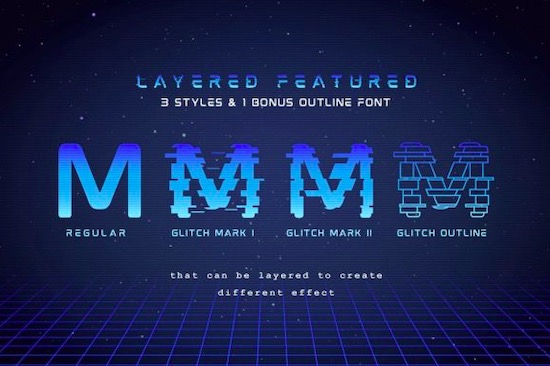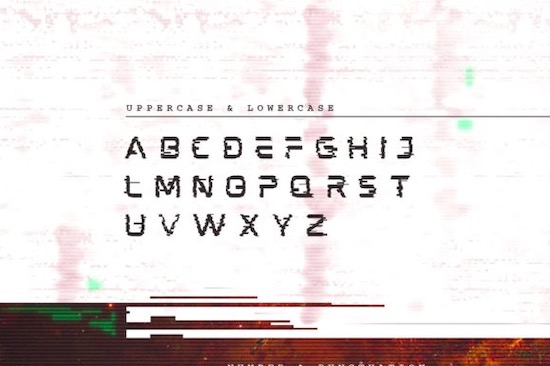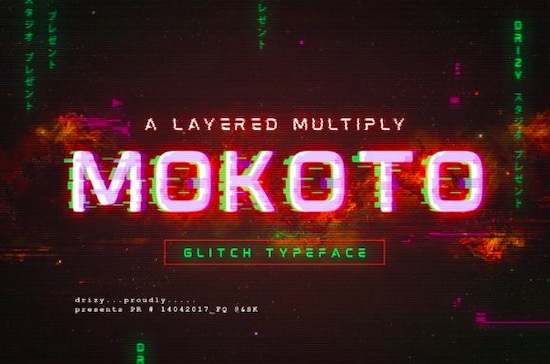
Mokoto Font was designed and released by Drizy Studio. And this display font can be fully and easily used for popular software so that we can be accessed by all of the customers, whether they be professional graphic designers or enthusiasts. Mokoto will give an experimental typeface that makes the appearance of the digital glitching effect become more exciting. Mokoto Font includes four font layers Regular, Glitch Mark I, Glitch Mark II, and Glitch Outline Regular. You can modify, and give its colors, and blending to give a friendly and lovely feel. You know how Highman Font is, maybe completely passive. Also the unexpected popularity by difference and refinement.
Mokoto is the ideal choice for designs covering CD albums, logos, posters/flyers, packaging, forward-looking motion graphics, contemporary posters, print projects, the web, video games, and much more.
Mokoto Display Font